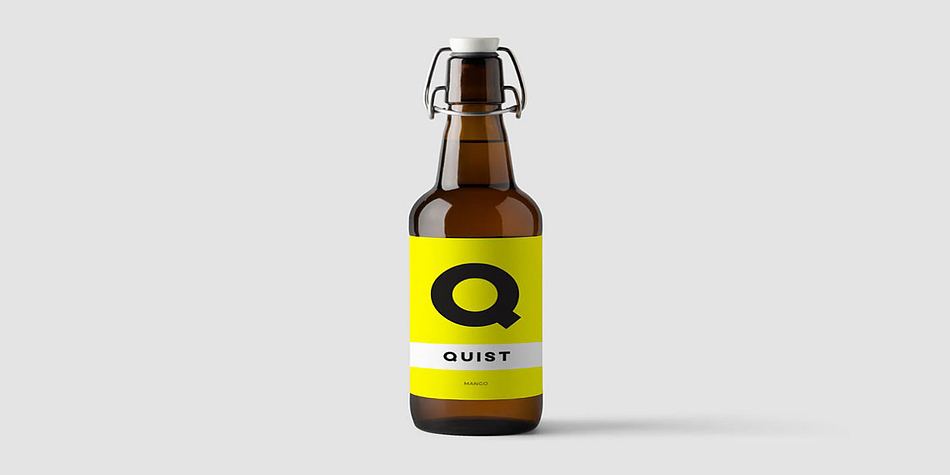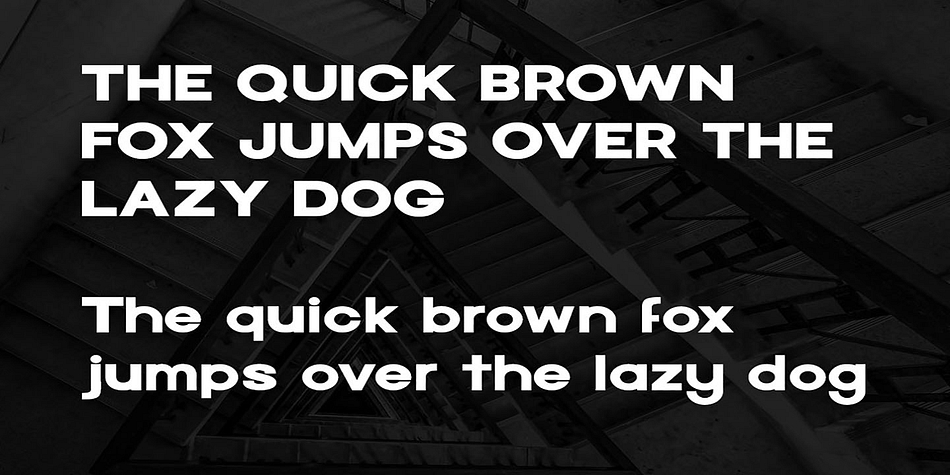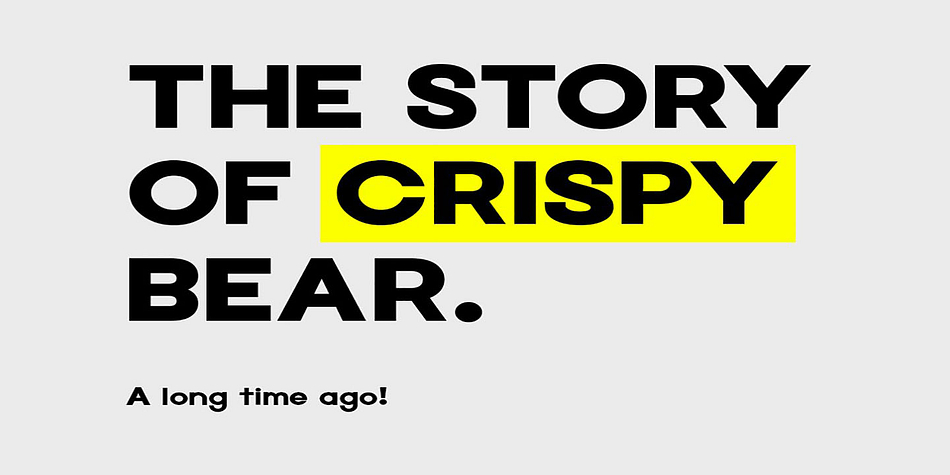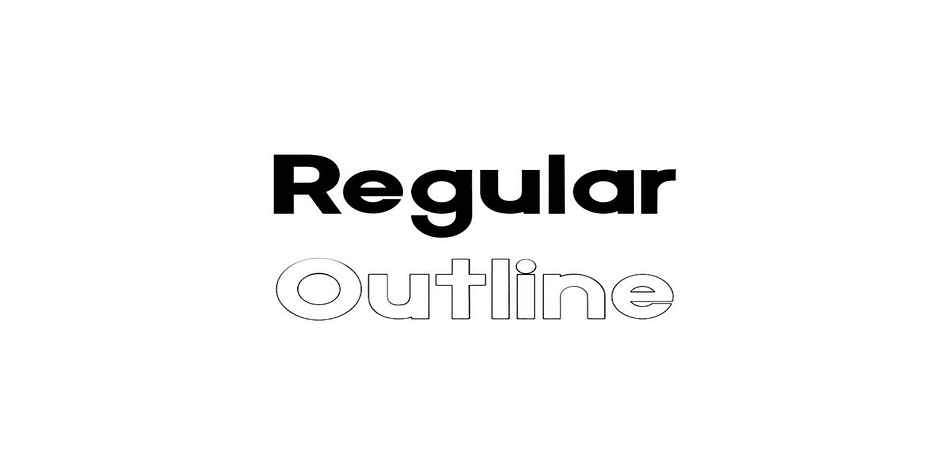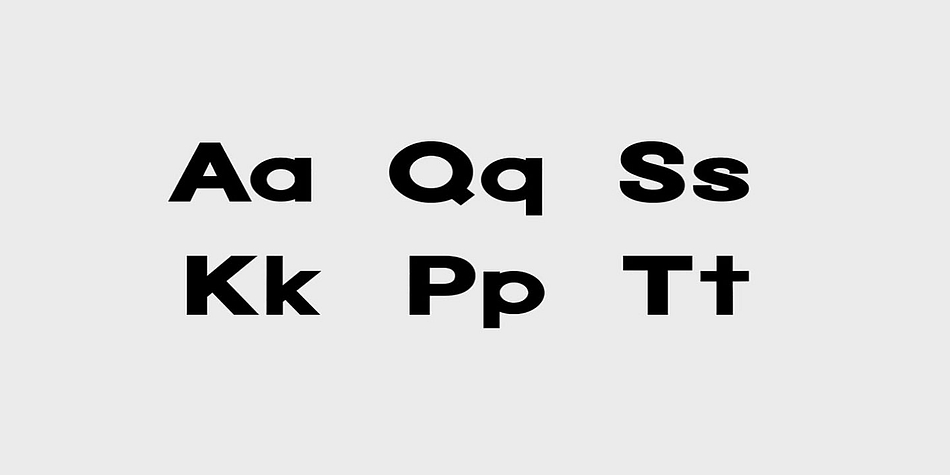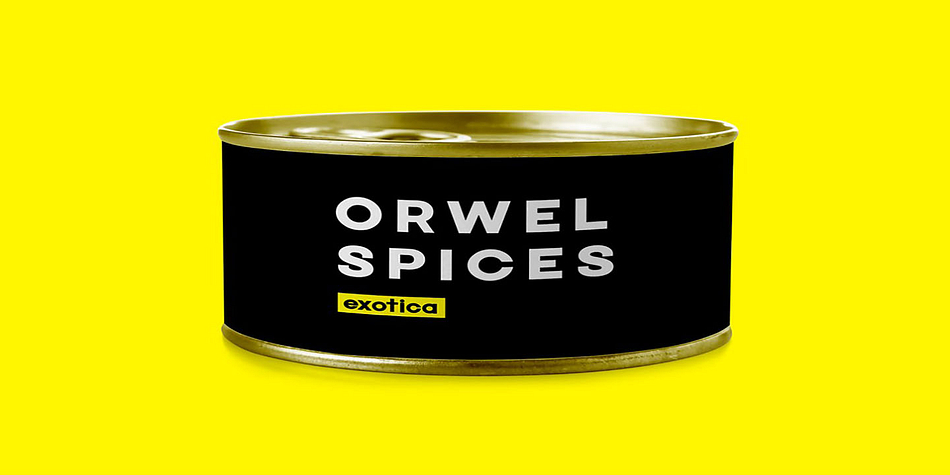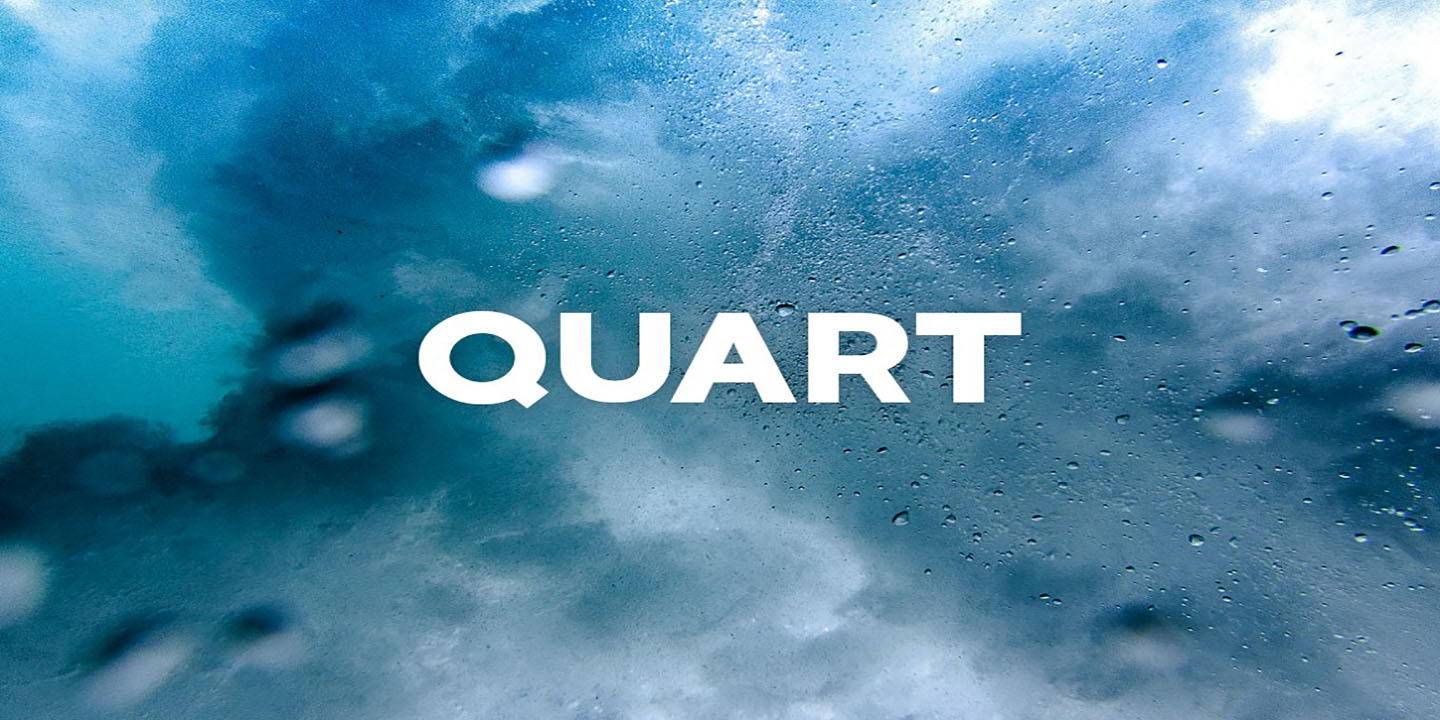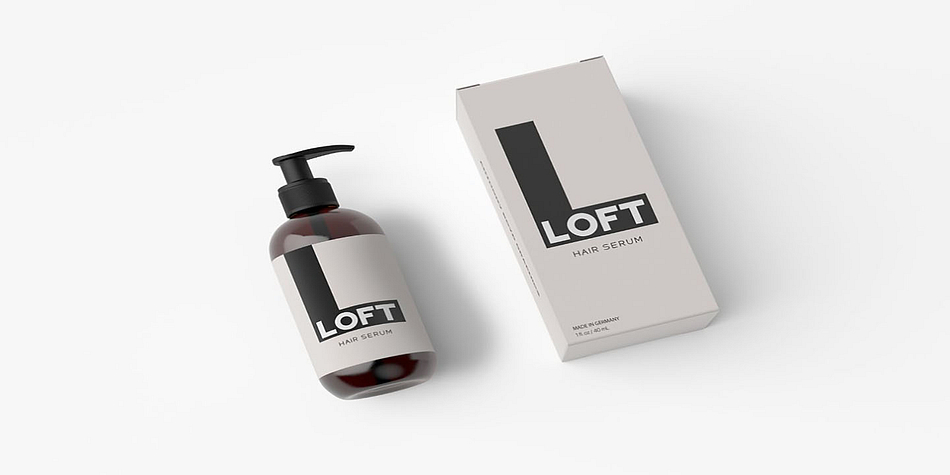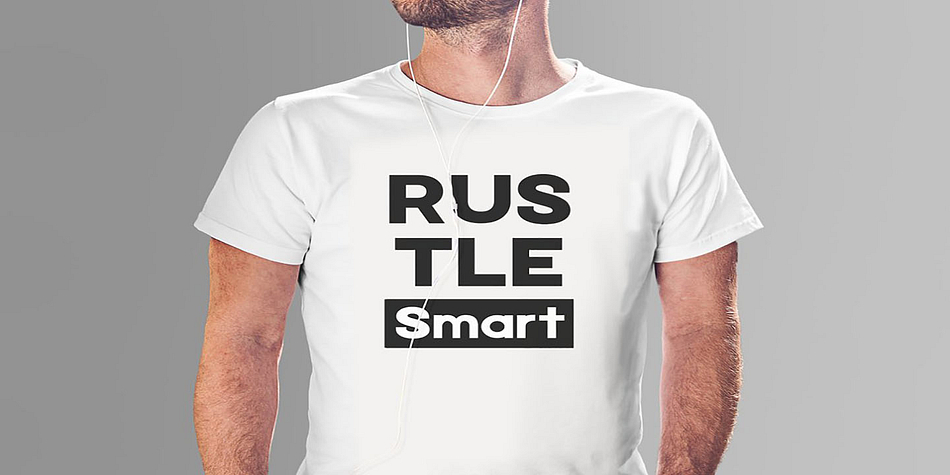
QUART
QUART is a display sans and sans serif font family. This typeface has two styles and was published by Fontastica.
QUART is an amazingly unique font for headlines, big text, branding, logotypes & display usage. This font is also perfect for creating outstanding logos, promotional content and marketing graphics that can really grab attention from your visitors. Please see the examples shown above to get an idea about the capability of this typeface.
QUART comes with single weight but two styles (Regular & Outline). The pack contains OTF, TTF and Web Fonts (all EOT, SVG, TTF, WOFF, WOFF2 everything is included).